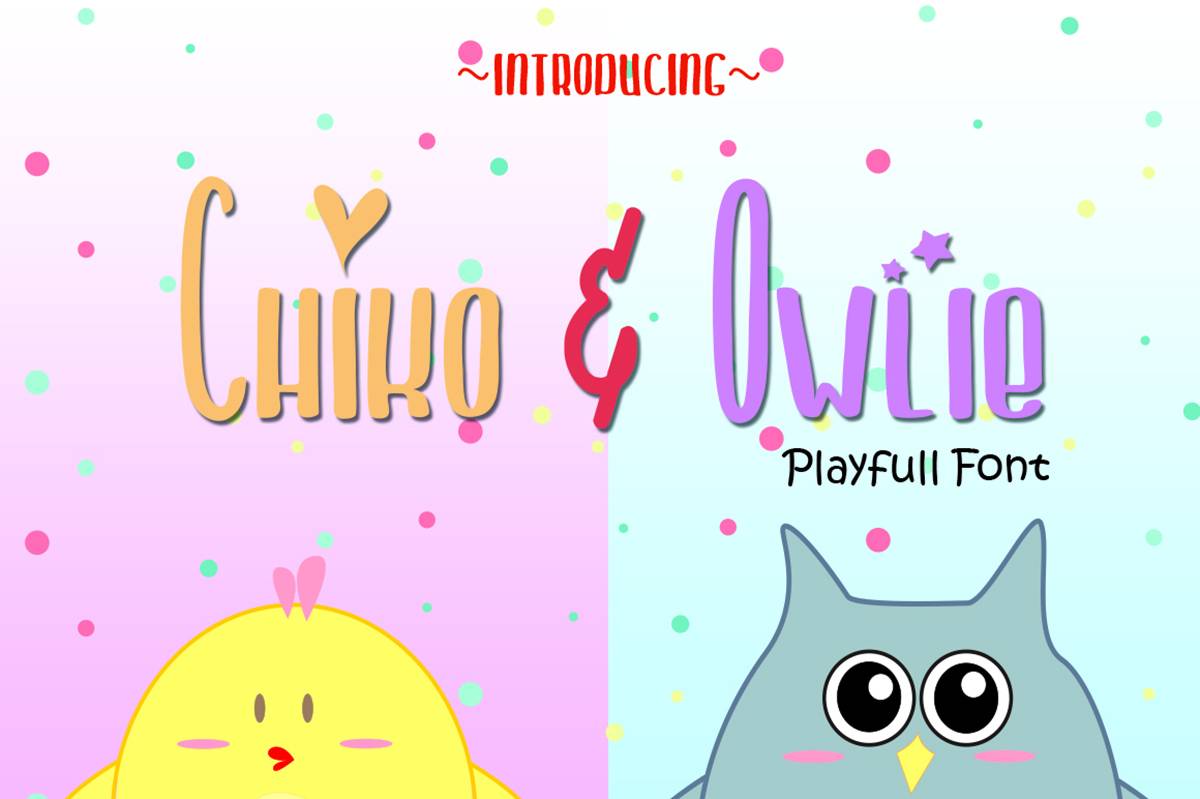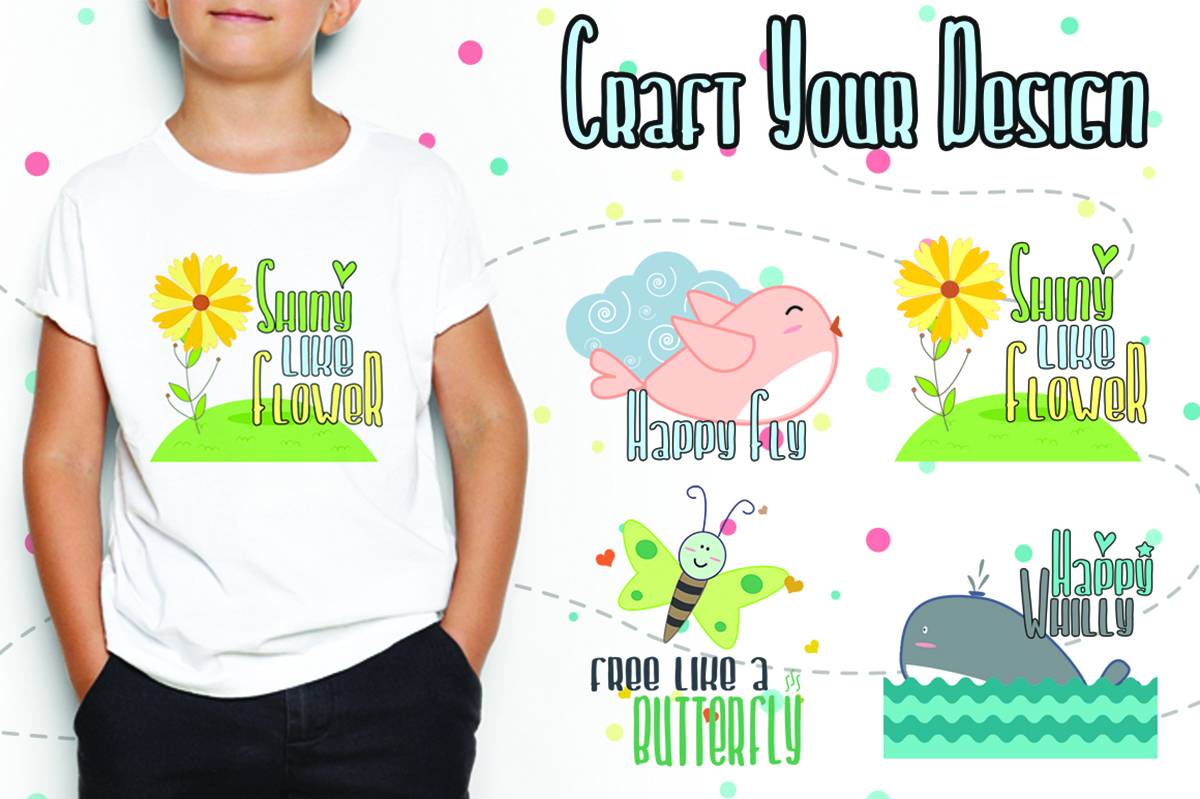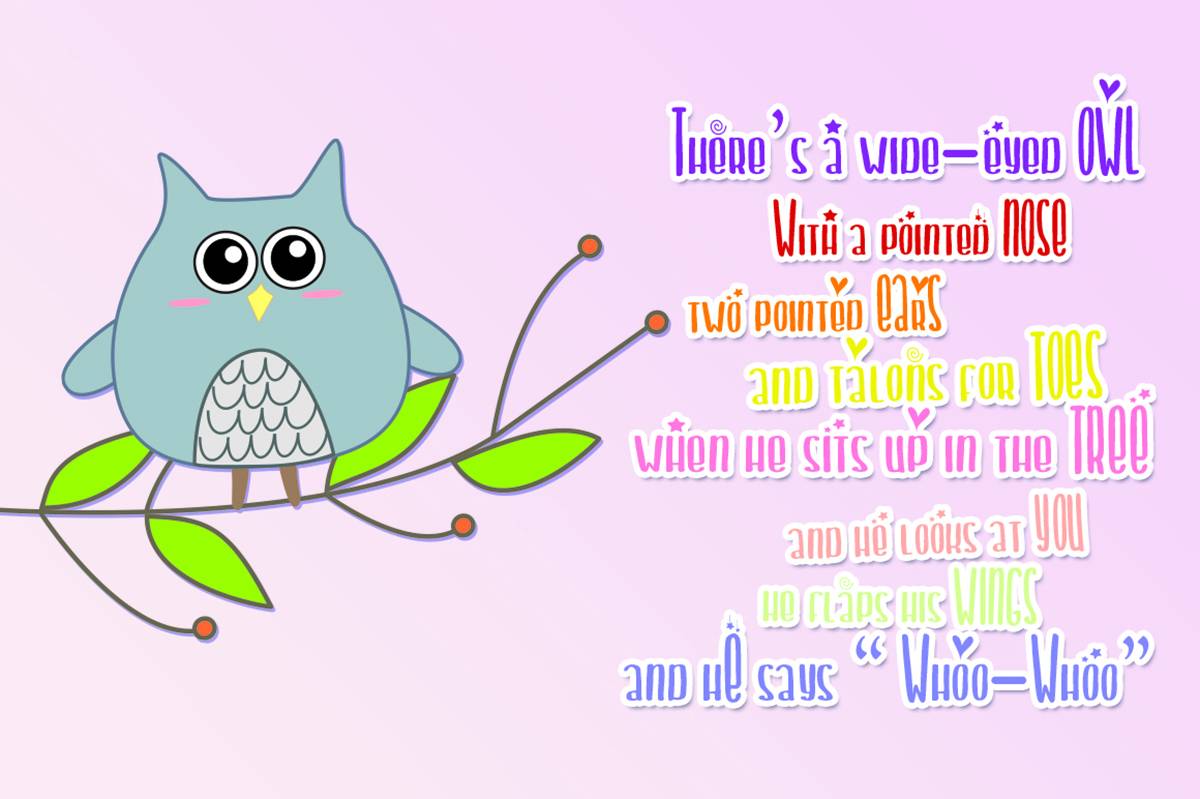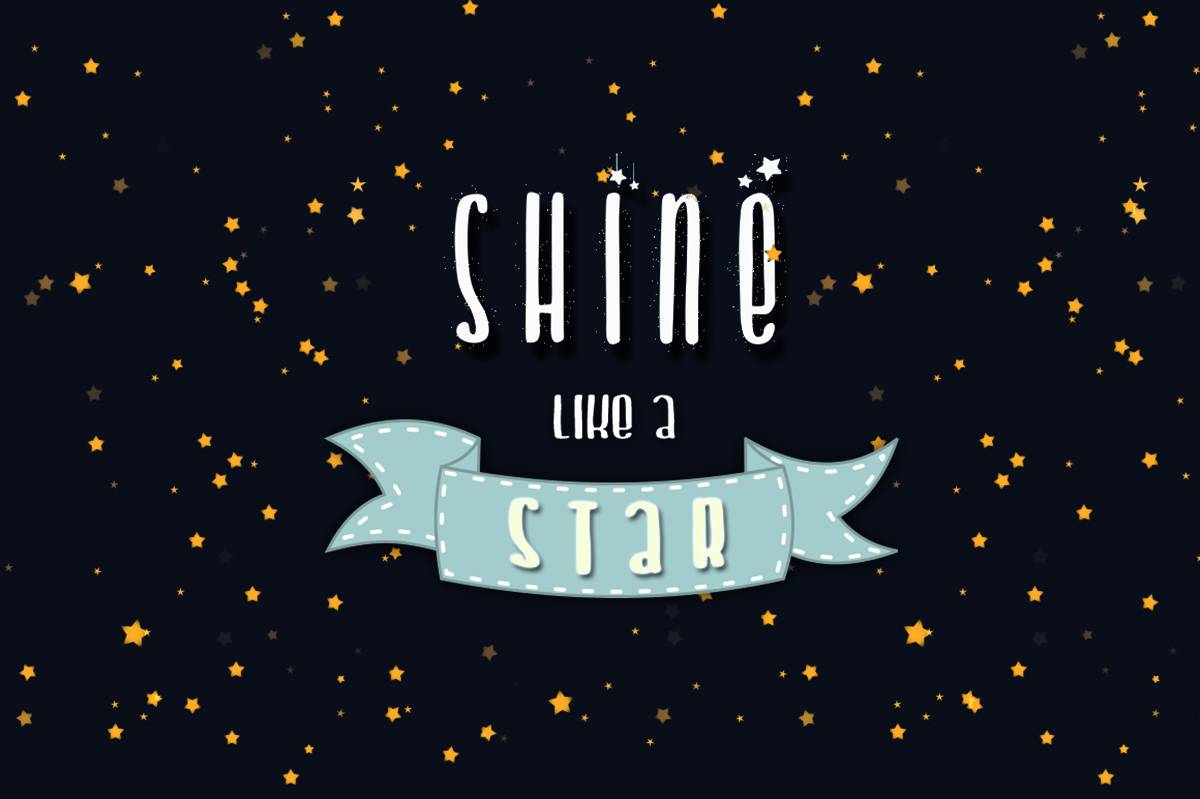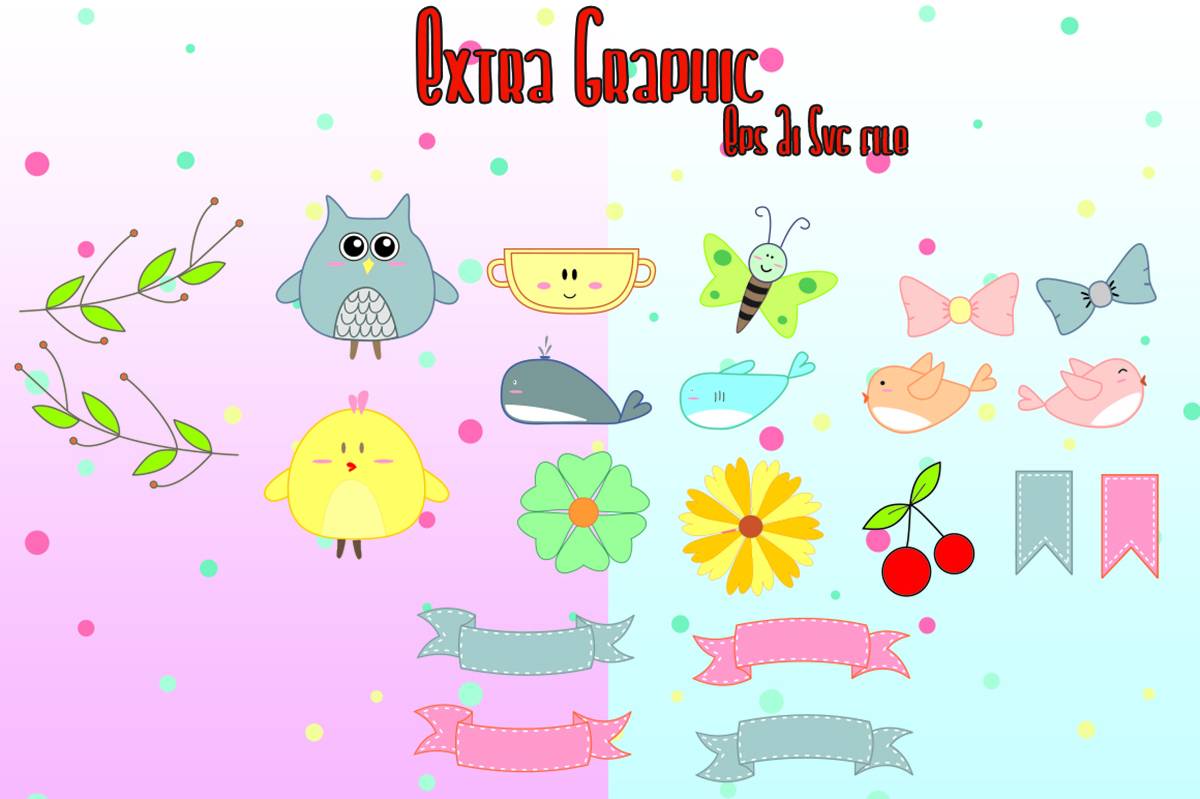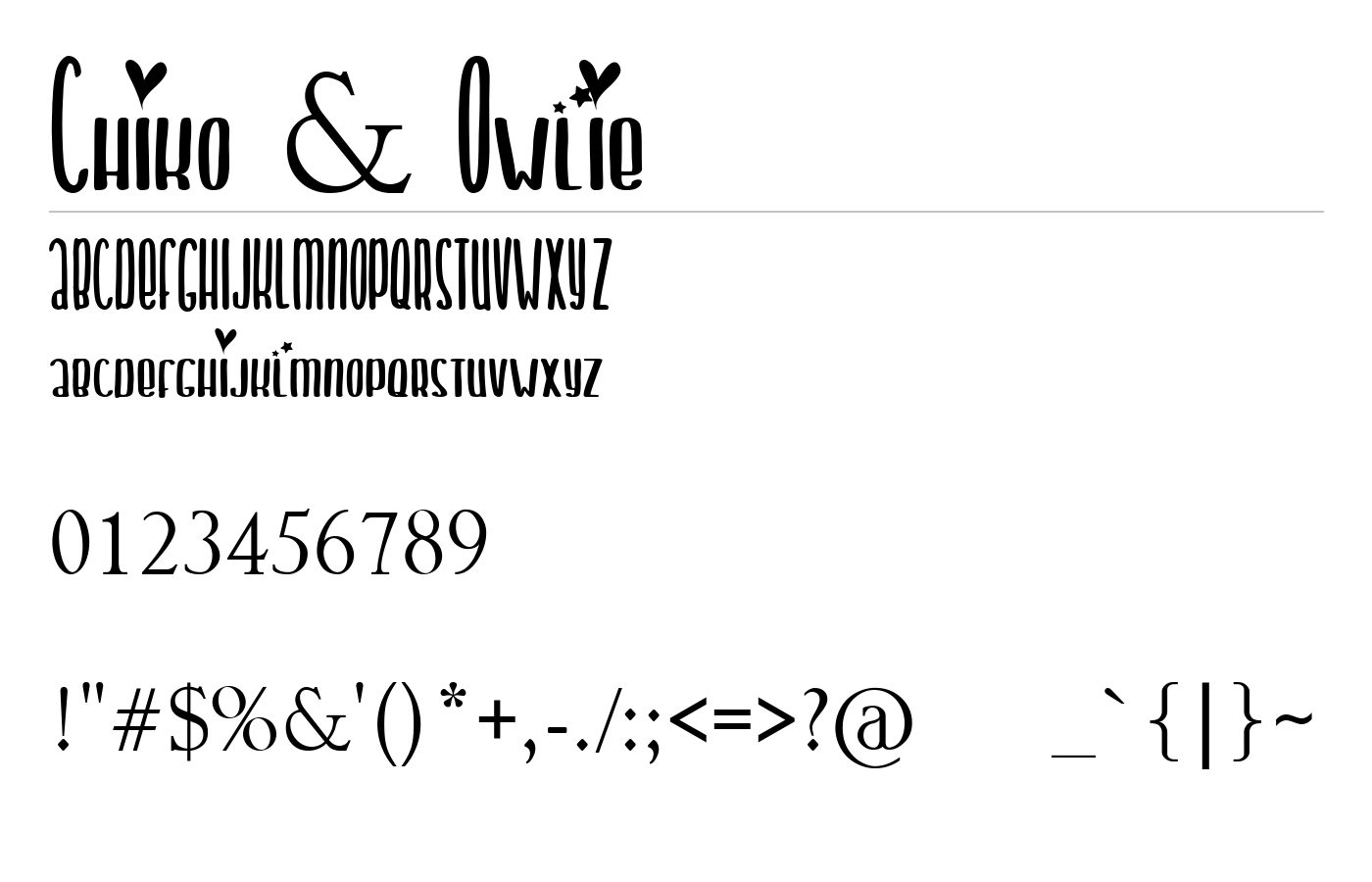
Chiko & Owlie is a playful and whimsical sans serif font featuring tall, narrow characters with charming decorative elements like hearts and stars that add a friendly, creative touch. Its irregular stroke widths and unique shapes give it a hand-drawn, casual feel, making it perfect for fun branding, invitations, posters, and projects seeking a lighthearted, artistic vibe. This font works best in headlines and display text where its personality can shine and capture attention.
Chiko & Owlie Font